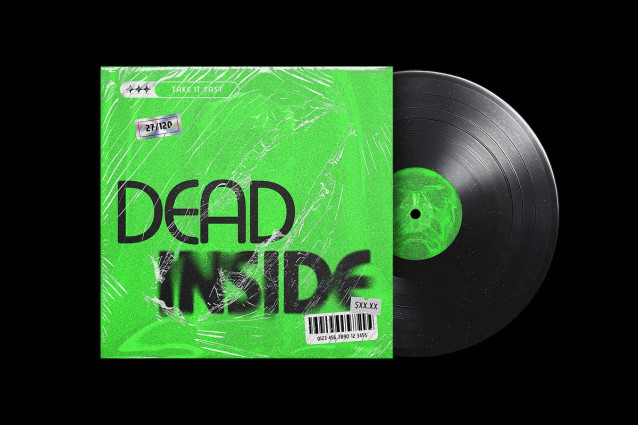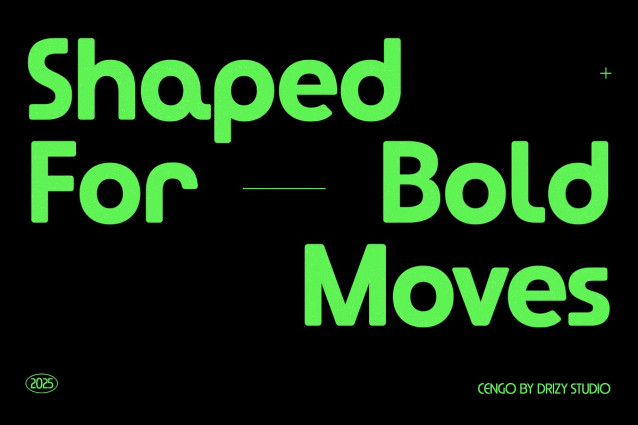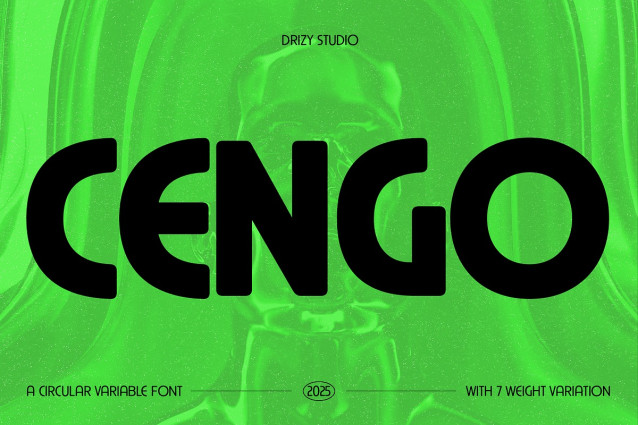
Cengo Font Family
Cengo Font Family – Circular Sans Variable Font is a modern and versatile typeface designed with clean, geometric curves in the style of a Circular Sans. Fully variable in weight, Cengo allows seamless transitions from thin to bold, making it perfect for everything from minimalist branding to bold headlines. Its sleek and friendly character brings clarity and flexibility to any design project.
Cengo – Circular Sans Variable Font features: -Uppercase & Lowercase P-unctuation & Numbers -Multilingual -Ligatures -7 Variable of Weights